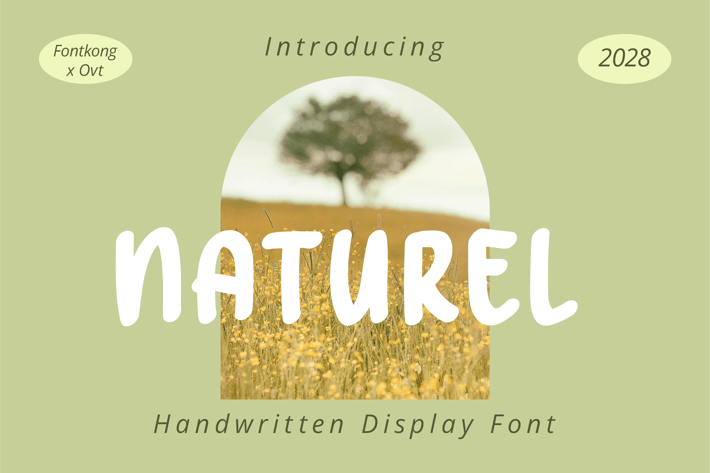
Naturel - A Handwritten Display Font
Naturel is a charming and organic handwritten display font designed to bring a natural and personal touch to your design projects. With its whimsical curves and handcrafted letterforms, Naturel is perfect for eco-friendly branding, rustic invitations, nature-inspired posters, and artisanal packaging. This font captures the essence of handcrafted beauty, ensuring your work stands out with a unique and inviting style.
Crafted with authenticity in mind, Naturel features smooth and flowing characters that offer excellent readability and visual appeal. Its natural design makes it ideal for display purposes, providing a warm and memorable presence. The font’s versatility allows it to adapt seamlessly to various design contexts, from digital platforms to printed materials, making it a valuable asset for any designer aiming to create inviting and captivating visuals.
Elevate your design projects with Naturel, a font that embodies the spirit of natural beauty and personal charm. Its unique style and adaptability make it an essential addition to any designer’s toolkit for crafting vibrant and engaging designs. Enhance your work with Naturel and experience the allure of handwritten display typography.
Naturel is a charming and organic handwritten display font designed to bring a natural and personal touch to your design projects. With its whimsical curves and handcrafted letterforms, Naturel is perfect for eco-friendly branding, rustic invitations, nature-inspired posters, and artisanal packaging. This font captures the essence of handcrafted beauty, ensuring your work stands out with a unique and inviting style.
Crafted with authenticity in mind, Naturel features smooth and flowing characters that offer excellent readability and visual appeal. Its natural design makes it ideal for display purposes, providing a warm and memorable presence. The font’s versatility allows it to adapt seamlessly to various design contexts, from digital platforms to printed materials, making it a valuable asset for any designer aiming to create inviting and captivating visuals.
Elevate your design projects with Naturel, a font that embodies the spirit of natural beauty and personal charm. Its unique style and adaptability make it an essential addition to any designer’s toolkit for crafting vibrant and engaging designs. Enhance your work with Naturel and experience the allure of handwritten display typography.